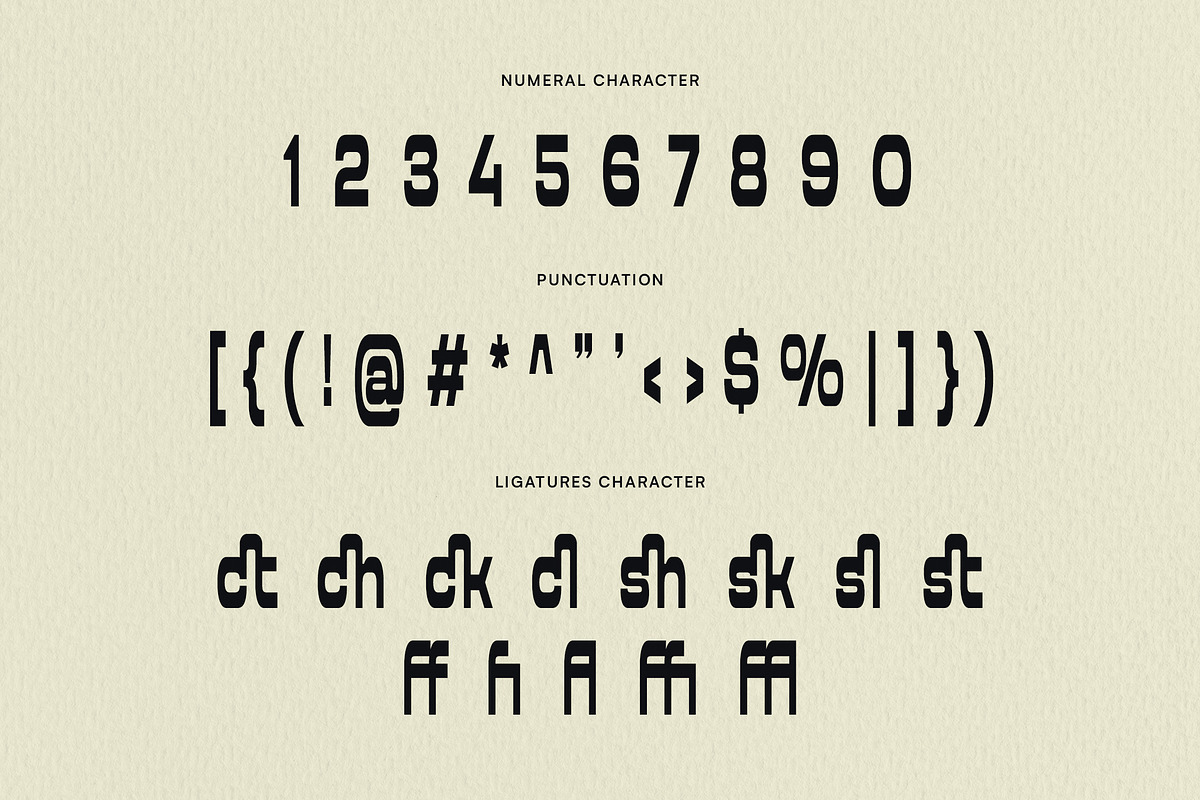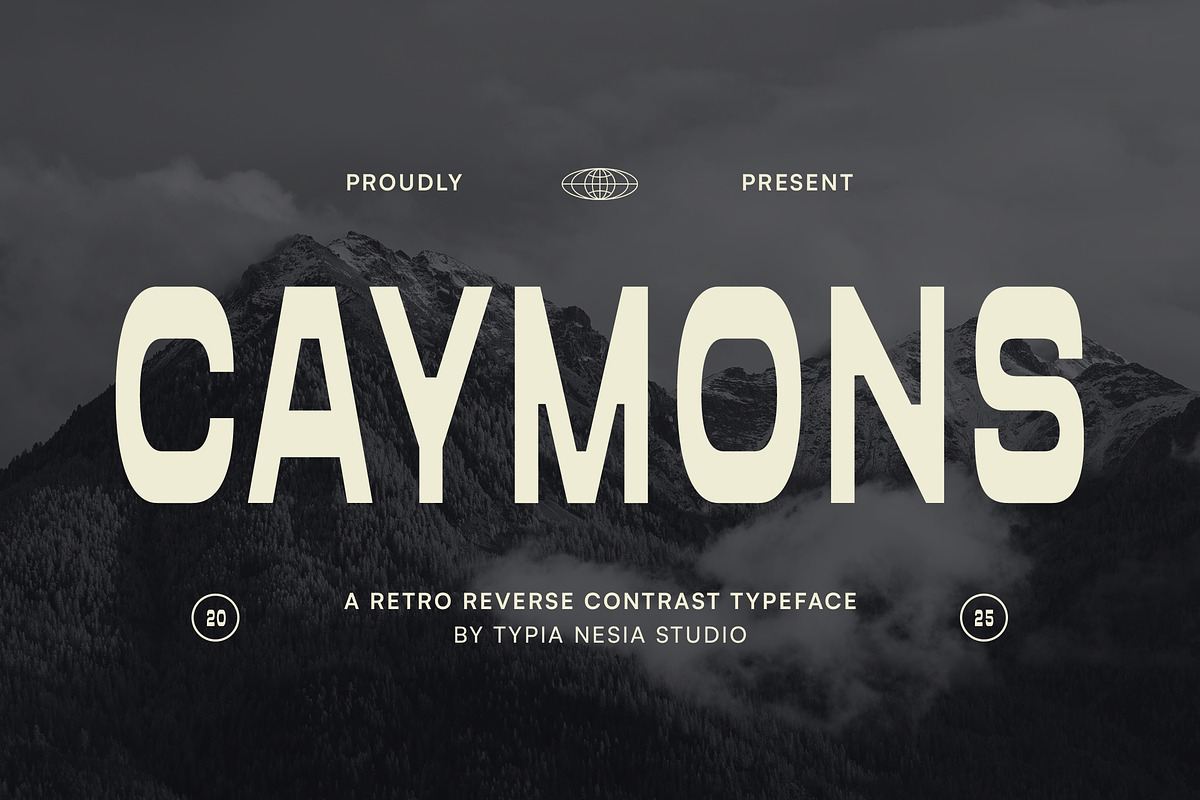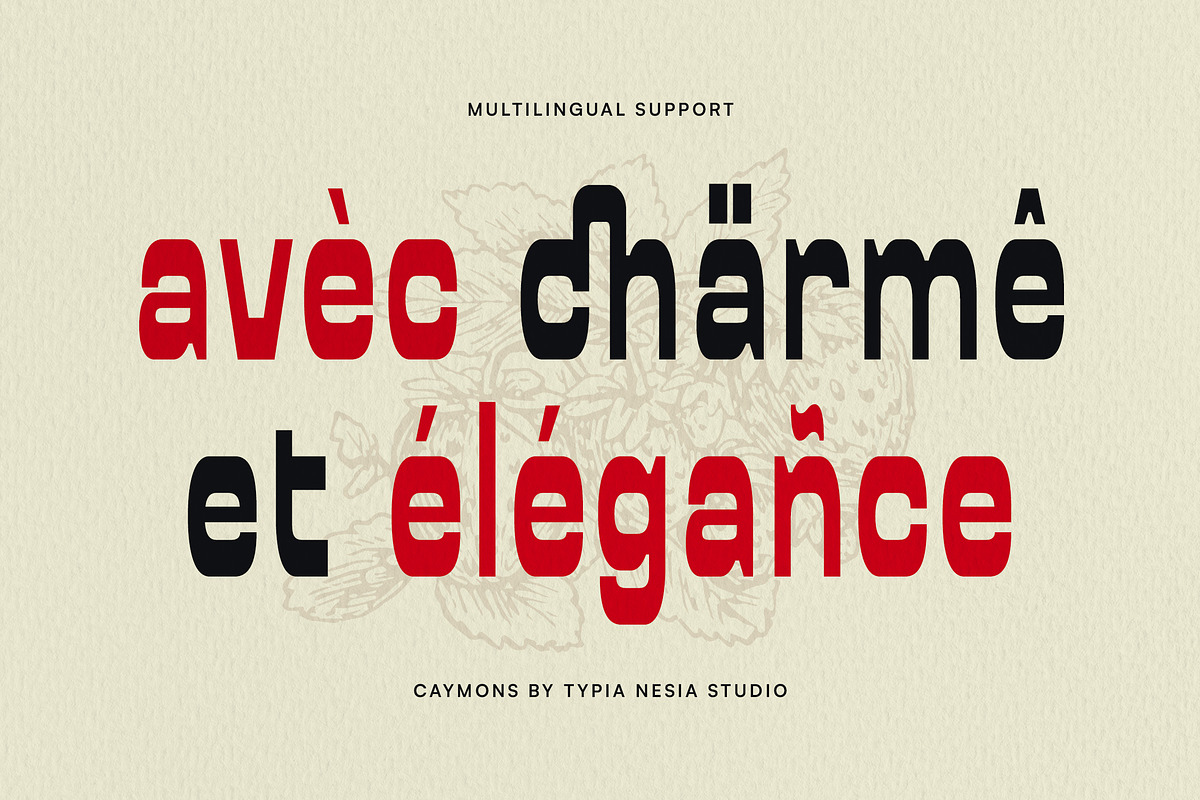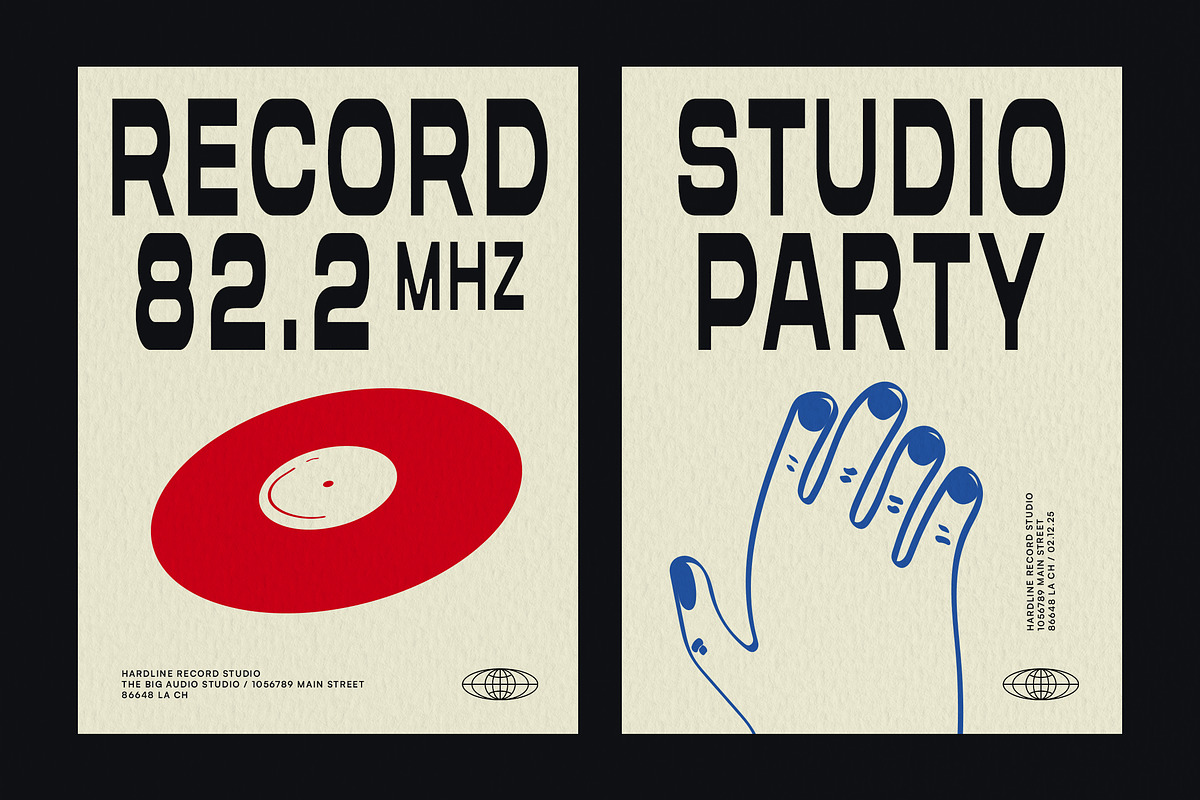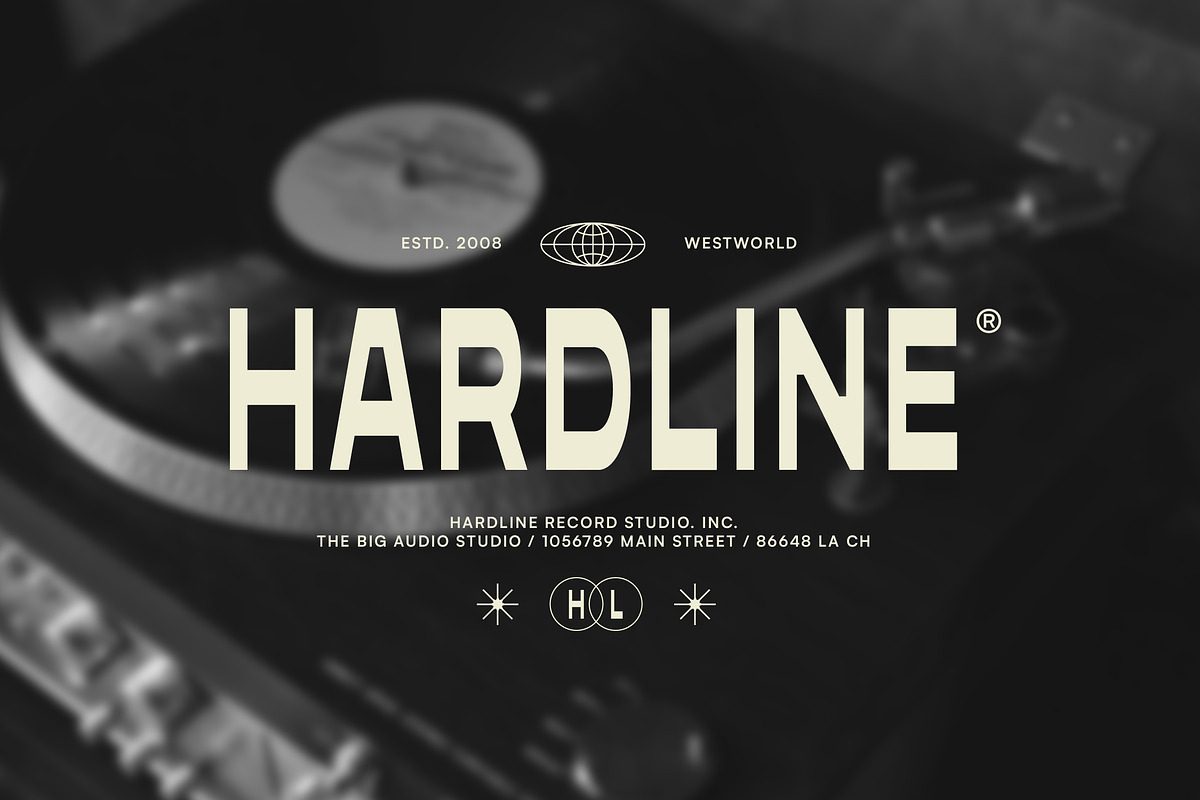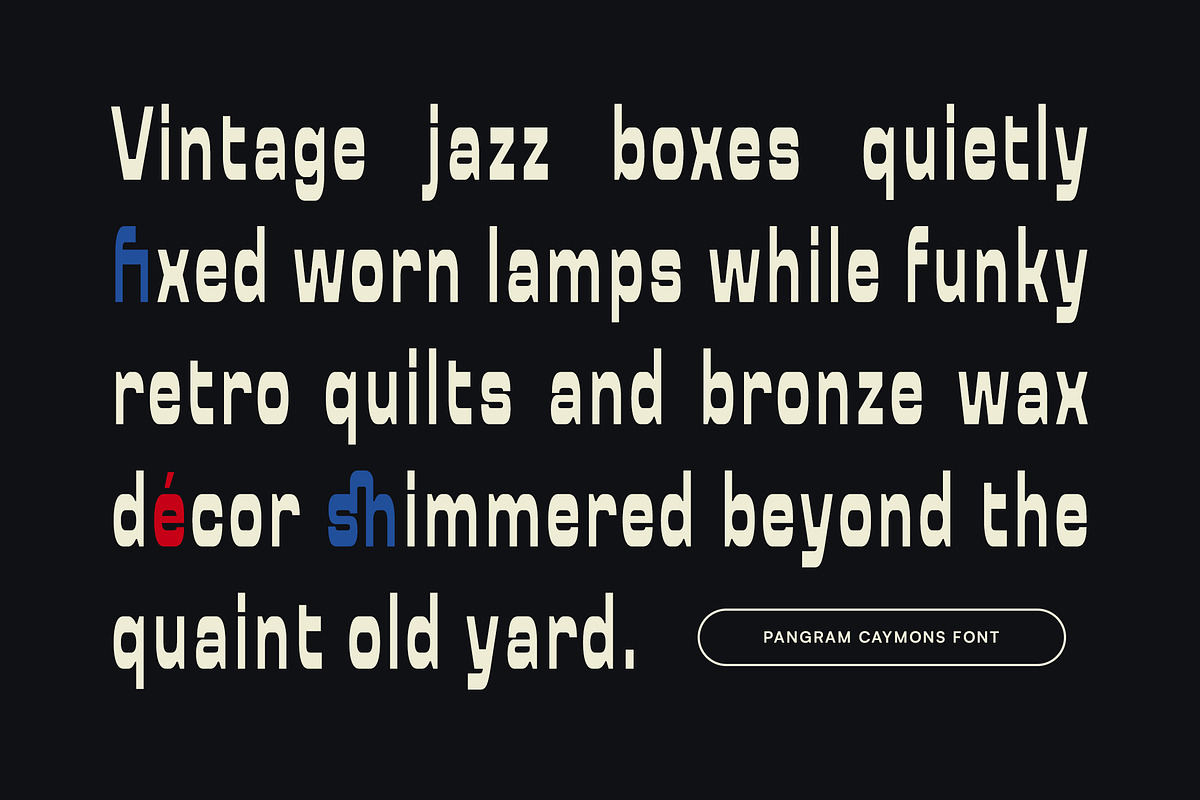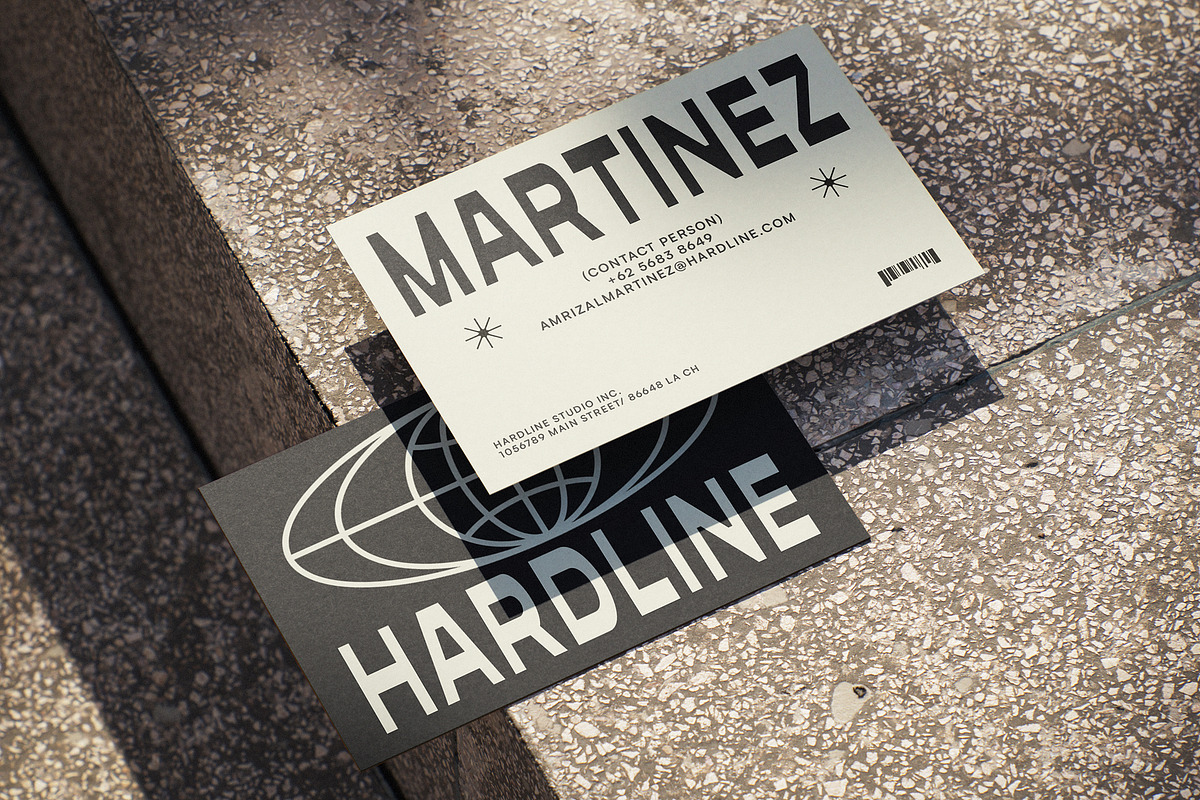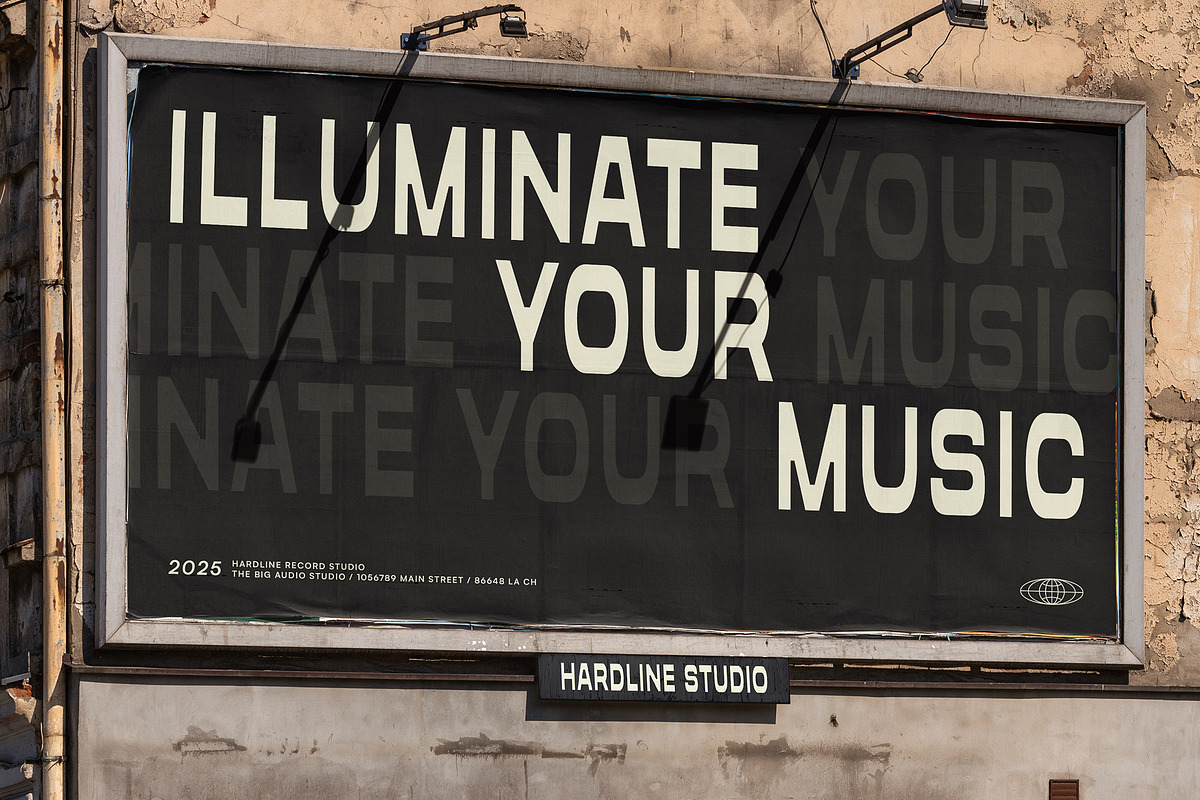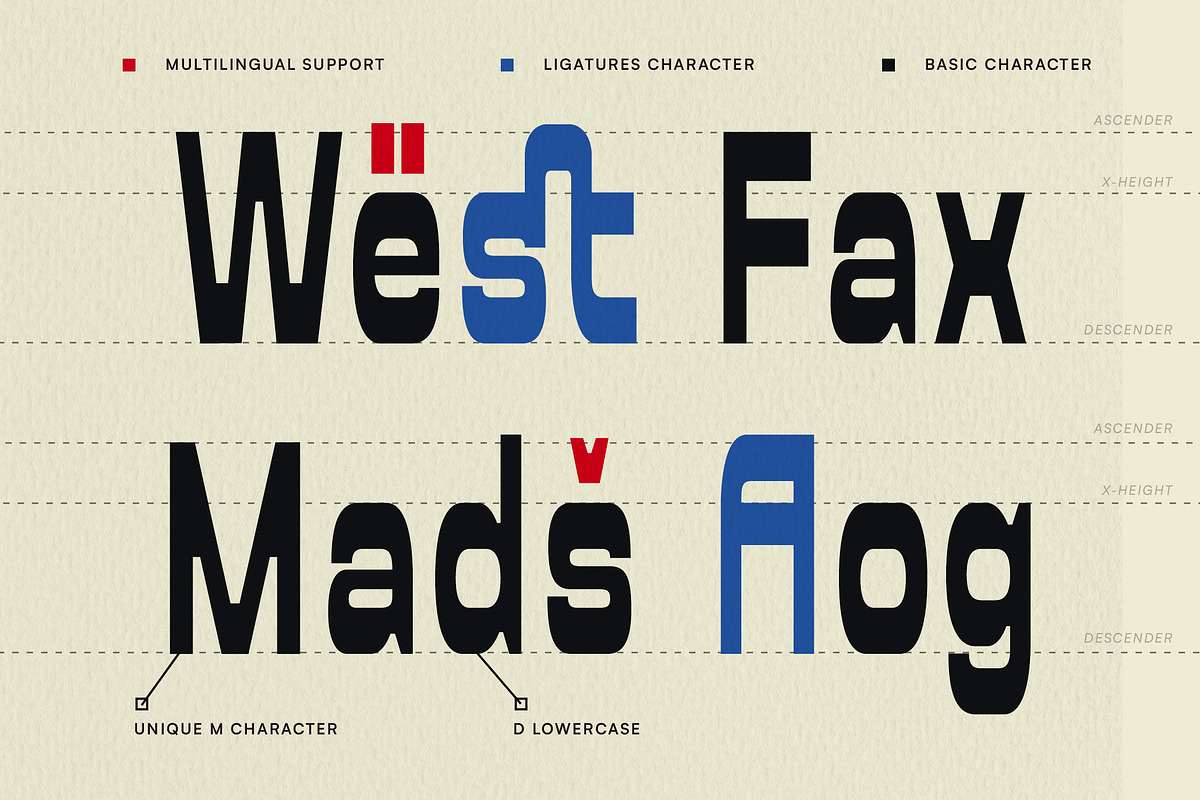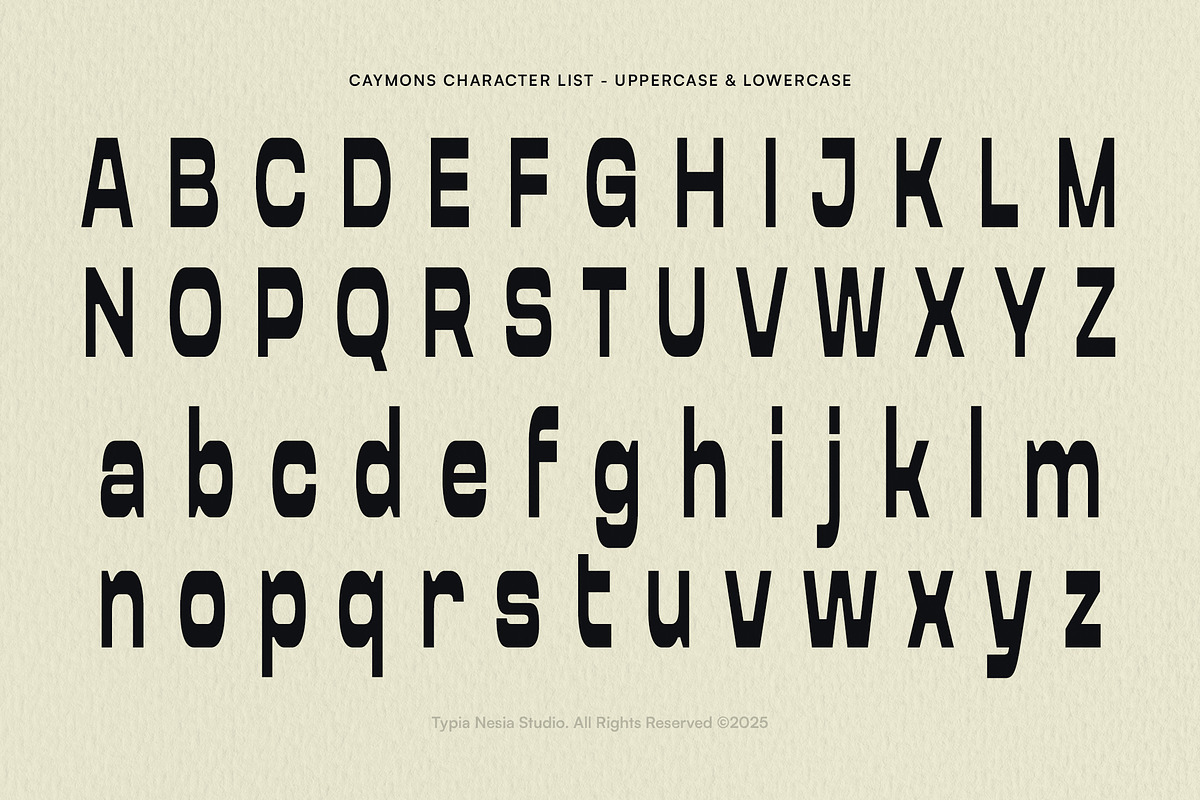
Caymons - Bold Condensed Retro Sans
Caymons - Bold Condensed Retro Sans - Modern & Vintage Logo Font
Caymons is a bold condensed retro sans font that takes inspiration from vintage typography and the energetic design trends of the 80s and 90s. This striking typeface features a unique reverse contrast style, giving it a distinctive and eye-catching appearance perfect for logos and badges, posters and large display text, especially for music or urban event branding, web design, and any projects that require a touch of modern and seek a nostalgic edge. Comes with multilingual support, a full set of uppercase and lowercase characters, numerals, punctuation, and decorative ligatures, this font ensures versatility for headlines, titles, and display text.